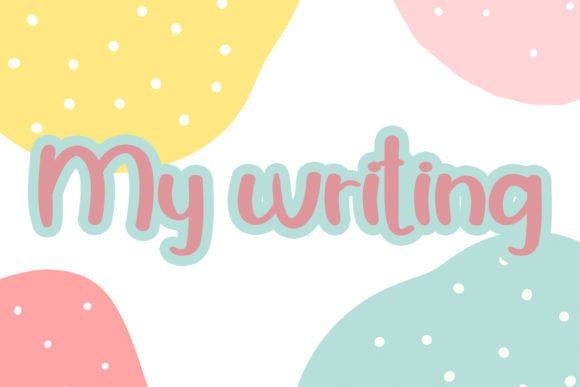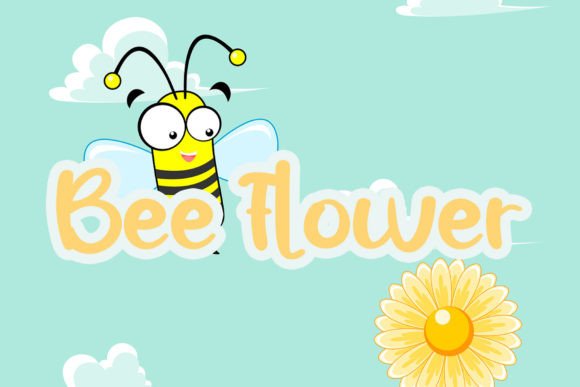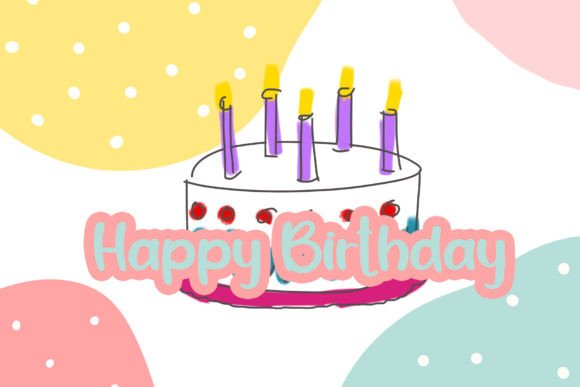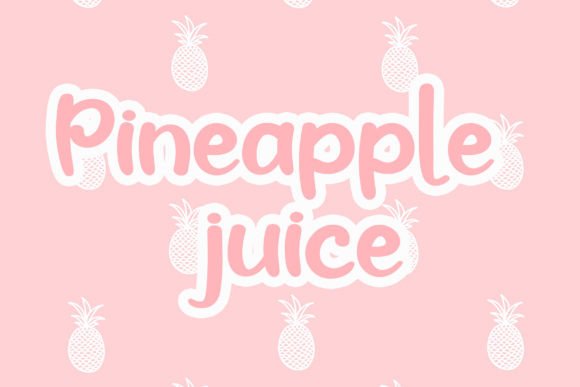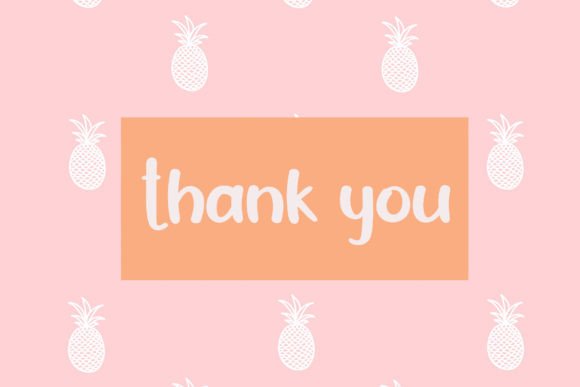
Introducing Boho Heart Font: The Sweet and Friendly Handwritten Display Font
Are you looking for a font that can add a touch of warmth and personality to your designs? Look no further than Boho Heart Font! This sweet and friendly handwritten display font is perfect for creating beautiful wedding invitations, cards, and other designs that require a fun and playful touch.
What is Boho Heart Font?
Boho Heart Font is a fresh and neat handwritten font that is designed to bring a sense of joy and whimsy to your designs. Its unique and charming lettering style makes it ideal for a variety of creative projects, from wedding invitations and cards to posters, flyers, and more.
Key Features of Boho Heart Font
- Sweet and Friendly Style: Boho Heart Font has a warm and inviting style that is perfect for creating designs that require a personal touch.
- Handwritten Display Font: This font is designed to be used as a display font, making it perfect for headlines, titles, and other prominent text elements.
- Fresh and Neat: Boho Heart Font has a clean and fresh look that will add a touch of elegance to your designs.
- Versatile: This font can be used for a wide range of design projects, from wedding invitations and cards to posters, flyers, and more.
Why Choose Boho Heart Font?
There are many reasons why Boho Heart Font is a great choice for designers and crafters. Here are just a few:
- Easy to Read: Boho Heart Font is clear and easy to read, making it perfect for designs that require a lot of text.
- Unique and Charming: This font has a unique and charming style that will set your designs apart from the rest.
- Perfect for Wedding Designs: Boho Heart Font is ideal for wedding invitations, cards, and other wedding-related designs.
- Great for Crafting: This font is also perfect for crafters who want to add a personal touch to their projects.
How to Use Boho Heart Font
Boho Heart Font is easy to use and can be incorporated into a variety of design projects. Here are a few ideas:
- Wedding Invitations: Use Boho Heart Font to create beautiful and unique wedding invitations that will set the tone for the big day.
- Cards: This font is perfect for creating handmade cards for special occasions, such as birthdays, anniversaries, and holidays.
- Posters and Flyers: Boho Heart Font can be used to create eye-catching posters and flyers for events, promotions, and more.
- Crafting: This font is also great for crafters who want to add a personal touch to their projects, such as scrapbooking, journaling, and more.
Tips and Tricks for Using Boho Heart Font
Here are a few tips and tricks for using Boho Heart Font:
- Use it as a Display Font: Boho Heart Font is designed to be used as a display font, so use it for headlines, titles, and other prominent text elements.
- Pair it with Other Fonts: This font pairs well with other fonts, so feel free to experiment with different combinations to find the perfect look for your design.
- Experiment with Colors: Boho Heart Font looks great in a variety of colors, so don’t be afraid to experiment and find the perfect color for your design.